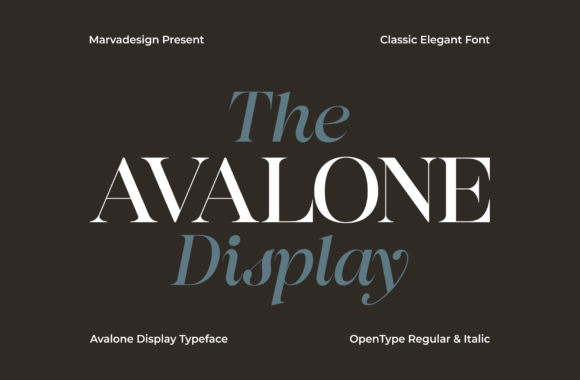
Avalone: A Typeface for Timeless Elegance
Discovering a typeface that perfectly balances timeless elegance with modern versatility is a rare find for any designer. Avalone is precisely that—a sophisticated serif font family that immediately elevates any creative project with its captivating character. This exquisite typeface, available in both Regular Serif and Italic styles, offers a powerful tool for crafting visual narratives that demand attention and convey a sense of refined professionalism.
Understanding Avalone's Design and Impact
At its core, Avalone is a study in harmonious contrast. The Regular Serif style is built on a foundation of classic letterforms, featuring well-defined serifs that lend an air of tradition, authority, and trust. This makes it an exceptional choice for formal documents, luxury branding, and editorial layouts where credibility is paramount. The clean lines and balanced proportions ensure excellent readability across both large headlines and body text, a critical factor in effective visual communication.
The Italic variant introduces a graceful, flowing slant that transforms the font's personality. It doesn't merely tilt the letters; it infuses them with motion, emphasis, and a distinct sense of elegance. This style is perfect for drawing the eye to key quotes, subheadings, or calls-to-action, adding a layer of sophistication without sacrificing clarity. Together, the two styles provide a complete typographic system for building strong visual hierarchies and dynamic layouts.
Practical Applications for Modern Design Projects
The true strength of a typeface like Avalone lies in its adaptability across a wide spectrum of creative assets. Its refined aesthetics allow it to enhance numerous applications, making it a valuable addition to any designer's toolkit.
- Branding and Logo Design: Avalone lends instant prestige and memorability to logos and brand identity systems. Its character helps brands in sectors like finance, law, hospitality, and luxury goods establish a strong, trustworthy presence.
- Marketing and Digital Content: From brochure headlines to website banners and social media graphics, the font captures attention. Its elegance ensures that key messages in digital marketing campaigns are delivered with impact and clarity.
- Editorial and Publication Design: For magazines, books, and annual reports, Avalone provides a professional and engaging reading experience. The Italic style is particularly useful for pull quotes and introductory text.
- Packaging and Product Design: On packaging, the typeface communicates quality and attention to detail. It can define a product's shelf appeal, making it stand out in a competitive retail environment.
- UI and Web Design: Used strategically for headings or featured text in user interface design, Avalone can add a touch of personality and guide the user's focus, improving the overall user experience.
Tips for Effective Typography in Your Workflow
Integrating a new font like Avalone into your design workflow requires thoughtful consideration. First, always test the typeface in context. Evaluate its readability at the sizes you intend to use, both on screen and in print. Consider how it interacts with your chosen color palette and imagery—does it complement or compete?
Second, maintain consistency. If you use Avalone for headlines, decide on a clear system for weights and styles to create a cohesive visual language. Pair it with a simpler sans-serif for body text to ensure maximum readability and a balanced visual hierarchy. Finally, think about your audience. The classic sophistication of Avalone resonates powerfully with audiences that value tradition and quality, making it ideal for premium branding and professional presentations.
Ultimately, the choice of typography is a fundamental design decision that shapes perception and communication. Selecting a versatile and high-quality creative asset like Avalone empowers designers to produce work that is not only visually stunning but also strategically effective. By investing in thoughtful typographic choices, you ensure that every project communicates its intended message with clarity, authority, and enduring style.